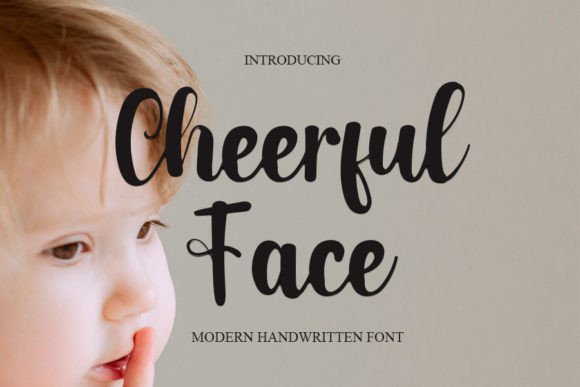
**Introducing Cheerful Face Font: A Playful Symphony for Your Creative Designs**
In a world saturated with monotonous fonts, Cheerful Face Font emerges as a breath of fresh air, a captivating script font that dances across the page with its modern vibe and spotless form, reminiscent of classic calligraphy. Inspired by the art of handwritten notes, this font is not too thin nor too thick, striking a perfect balance between elegance and playfulness. It's a font that was meticulously crafted to elevate the aesthetics of your projects, adding a touch of charm and personality that resonates with your audience.
**Unleash Your Inner Artist with Cheerful Face Font**
With Cheerful Face Font as your creative companion, you'll embark on a delightful journey of artistic expression. This font is a versatile chameleon, effortlessly adapting to a myriad of projects, from heartfelt wedding invitations to playful social media posts. Its graceful curves and lively strokes bring a sense of joy and celebration to any design, capturing the attention of your audience with its infectious charm. Whether you're a seasoned designer or just starting to explore the world of typography, Cheerful Face Font is your perfect partner, guiding you towards creative brilliance.
**A Font That Speaks Volumes: The Allure of Cheerful Face Font**
Cheerful Face Font possesses an innate ability to communicate emotions and messages with its mere presence. Its playful nature invites a smile, while its elegant form conveys a sense of sophistication and timeless beauty. This font has the power to transform ordinary words into heartfelt expressions, making them resonate with your audience on a deeper level. Whether you're crafting a heartfelt letter to a loved one or creating a captivating poster for an upcoming event, Cheerful Face Font becomes an extension of your creative voice, amplifying your message and leaving a lasting impression.
**Experience the Joy of Seamless Design with Cheerful Face Font**
The creation of Cheerful Face Font was guided by one unwavering principle: to make your design journey effortless and enjoyable. This font's intuitive design and flawless execution ensure that every letter flows seamlessly into the next, creating a cohesive and visually stunning text. You won't have to spend countless hours tweaking and adjusting; Cheerful Face Font does the heavy lifting for you, allowing you to focus on unleashing your creativity and bringing your artistic vision to life.
**Step into the World of Cheerful Face Font: A Font Like No Other**
Cheerful Face Font isn't just another font; it's an experience, a journey into a world of boundless creativity and self-expression. It's a font that sparks joy, ignites imagination, and leaves an indelible mark on your designs. As you immerse yourself in the world of Cheerful Face Font, you'll discover a new level of creative freedom, transforming your projects into masterpieces that captivate and inspire.